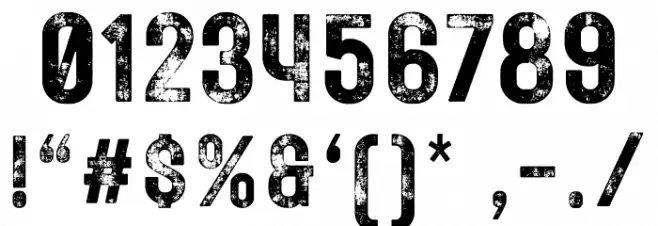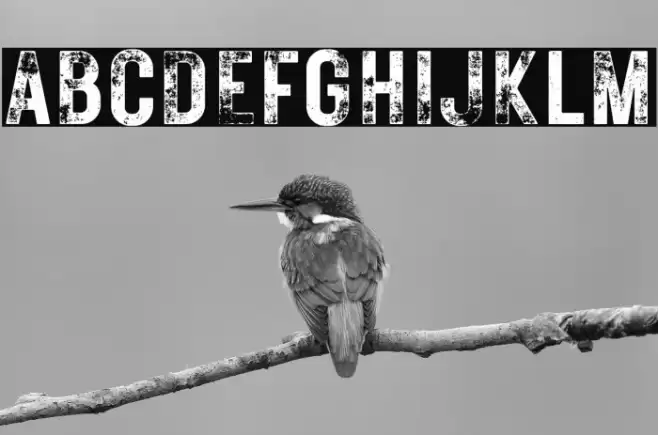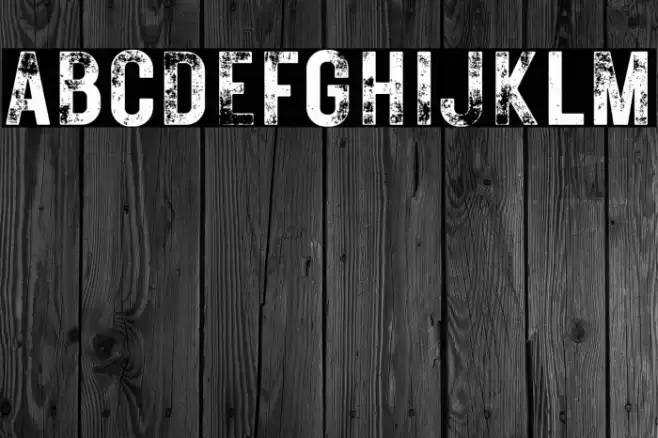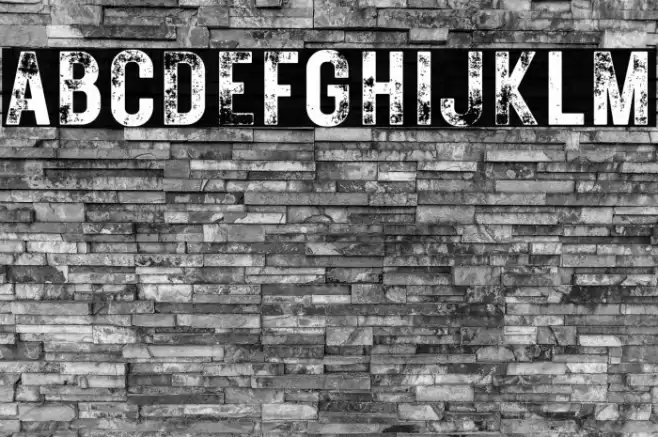
RusticPrinted-Demo Font
RusticPrinted-Demo Description
This font features a distressed, textured appearance that gives it a rugged, vintage feel. The characters are bold and impactful, with a worn-out look that suggests a rustic, printed style. The uppercase and lowercase letters maintain a consistent design, with each character exhibiting a unique pattern of distress that adds to the overall aesthetic. The numbers and special characters follow the same design principles, ensuring a cohesive look across all elements. This font is ideal for projects that require a touch of nostalgia or a handcrafted appearance.
| Overall Style | Vintage |
| Use Case | Logos, Headlines, Posters |
| Proposed Projects | Perfect for branding, posters, packaging, and any design work that requires a vintage or rustic touch. |